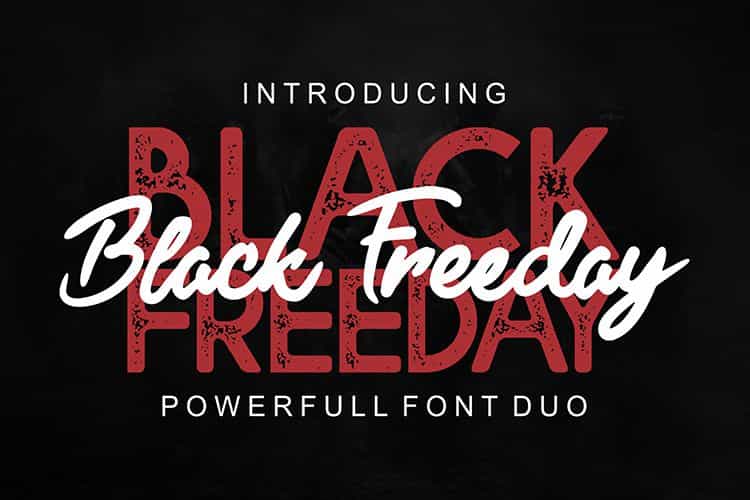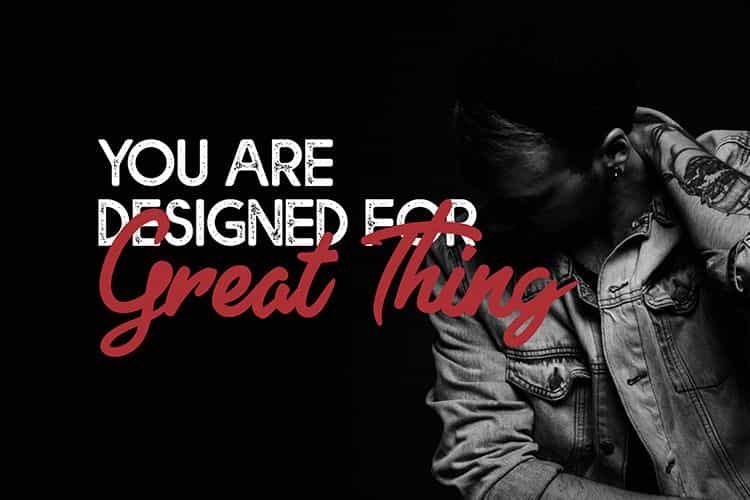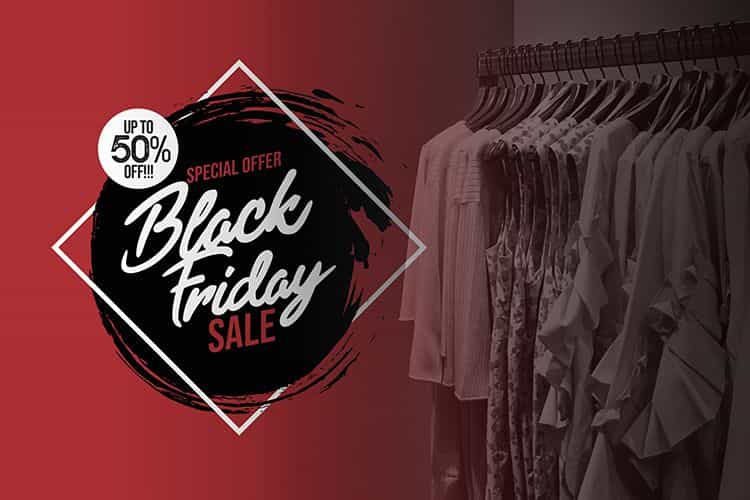
Discover Black Freeday Font Duo, part of the Sans Serif Brush Handwritten Display Retro Typewriter collection—a versatile and unique font perfect for adding a personal touch to your projects. Download it for free and enjoy crafting designs with style, from invitations to social media posts. This font is available exclusively for personal use, giving you the freedom to create without limits. Unlock your creativity with Black Freeday Font Duo today!
Introducing Black Freeday Typeface. The Black Freeday is a strong combination of fonts which are inspired by the happiness and enthusiasm of black friday. It is comprised of 2 styles that will make your design more distinctive. This font is suitable for a lot of things, like branding logos, web and editorial design, prints invitations crafts quotes and so on.